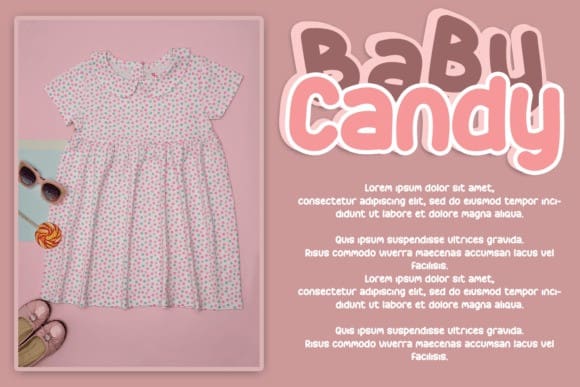
Kids Bus Font
Kids Bus Font is a lovely display font featuring charming, playful characters that seem to dance along the baseline. Add this font to your most creative ideas, and notice how it makes them stand out!